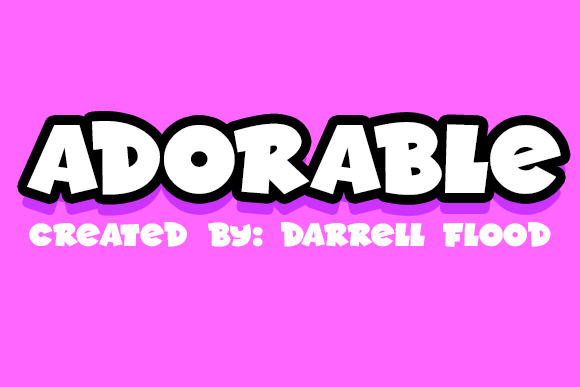
The Adorable Font: A Cute and Playful Addition to Your Design Toolkit
I’ll never forget the time I was working on a project for a children’s brand, and I just couldn’t find the right font to match their bubbly personality. The client wanted something that would appeal to kids and parents alike, but everything I tried seemed either too boring or too over-the-top. That’s when I stumbled upon the Adorable Font, created by Darrell Flood. This cute, round, cartoonish style font has since become a staple in my design toolkit, and I’m excited to share it with you!
So, what makes the Adorable Font so special? Let’s dive into the good stuff and a few quirks I’ve discovered.
- ✨ Its playful, rounded design makes it perfect for projects that need a touch of whimsy.
- ✅ The font is highly legible, even at smaller sizes, making it great for body text or captions.
- 💕 The Adorable Font comes with a range of OpenType features, including glyphs and stylistic alternates, which allow for plenty of creative experimentation.
While the Adorable Font is an excellent addition to any design project, there are a few things to keep in mind:
- 🤔 Some of the more intricate details can get lost at very small font sizes, so it’s best to use it at larger sizes (12pt or above) for optimal effect.
- ⚠️ As with any font that relies on rounded shapes, it may not be the best choice for very long blocks of text or formal documents.
Darrell Flood, the creator of the Adorable Font, is said to have been inspired by classic cartoons and children’s books. His goal was to create a font that was both fun and approachable, with a playful edge that would bring joy to anyone who used it. Whether or not that’s true, it’s clear that the Adorable Font has a special charm that makes it perfect for a wide range of design projects.
Q: Is the Adorable Font suitable for body text?
A: While it’s legible, the Adorable Font is best used for headlines, titles, or short paragraphs. For longer blocks of text, a more traditional font might be more suitable.